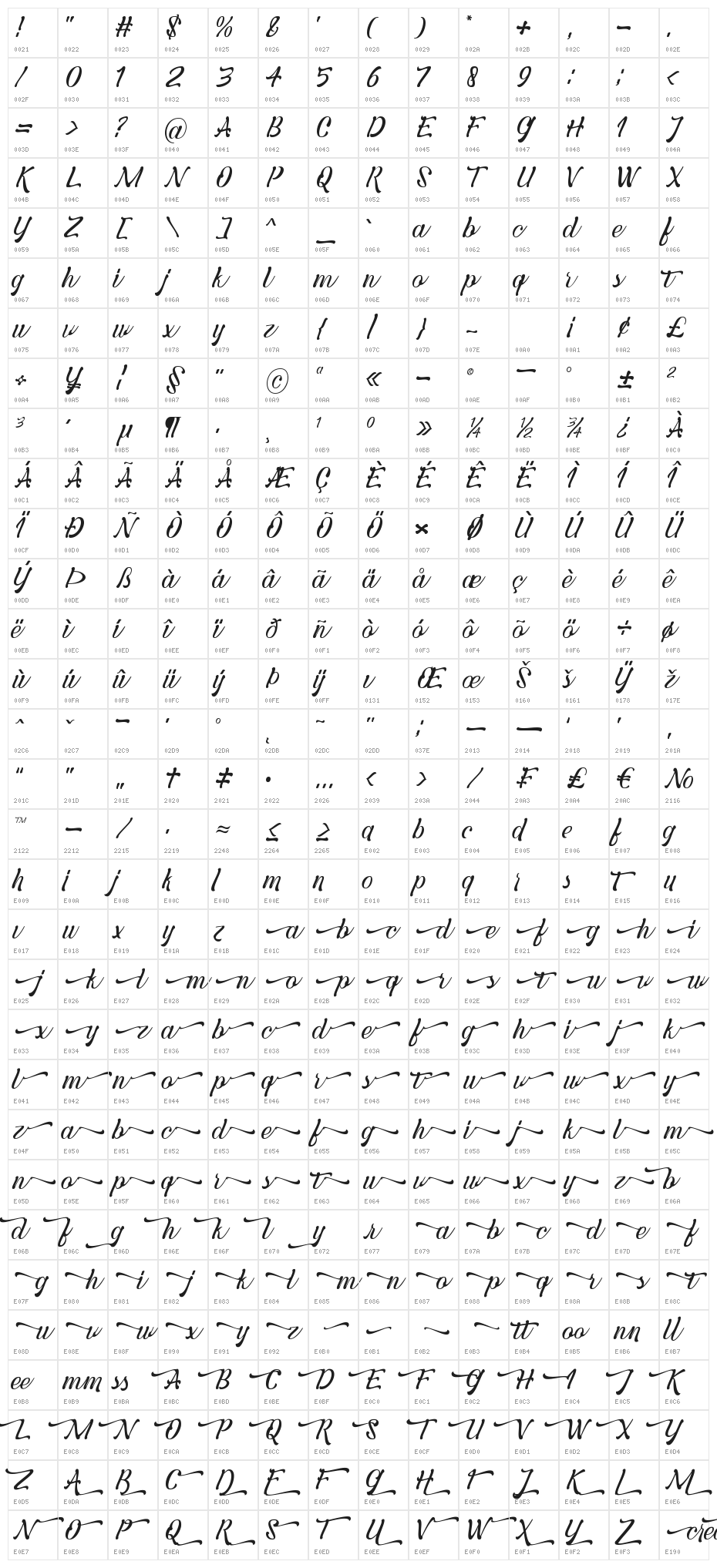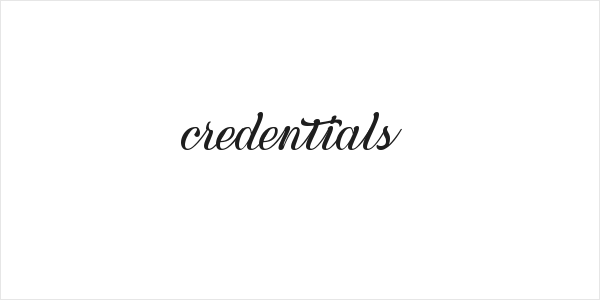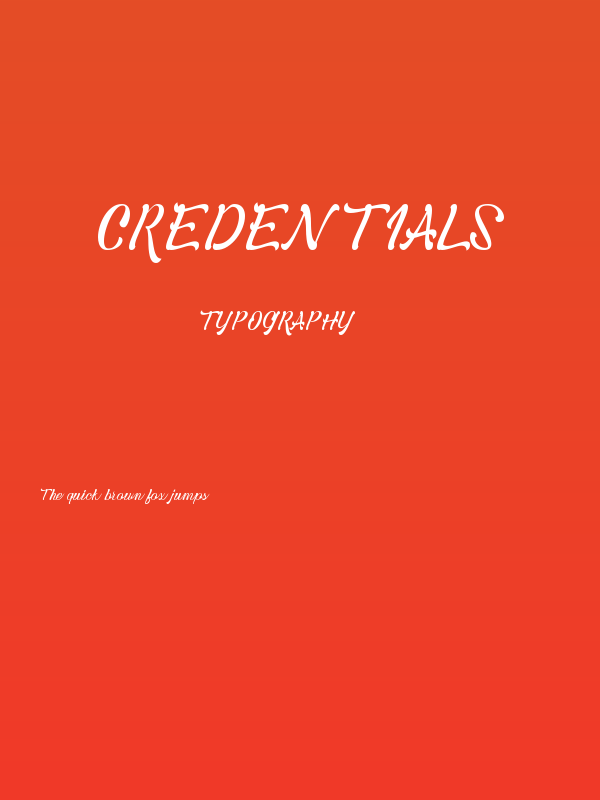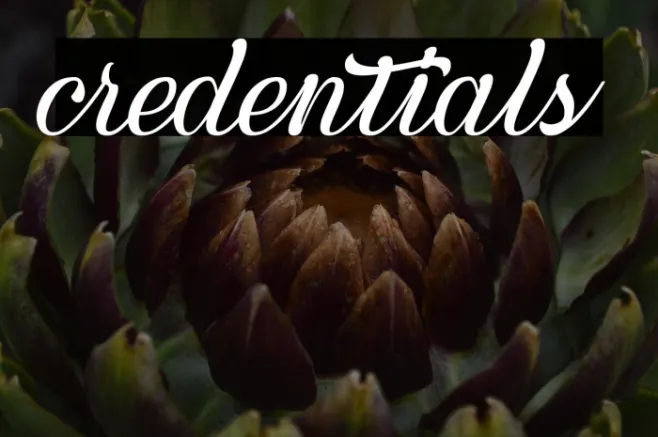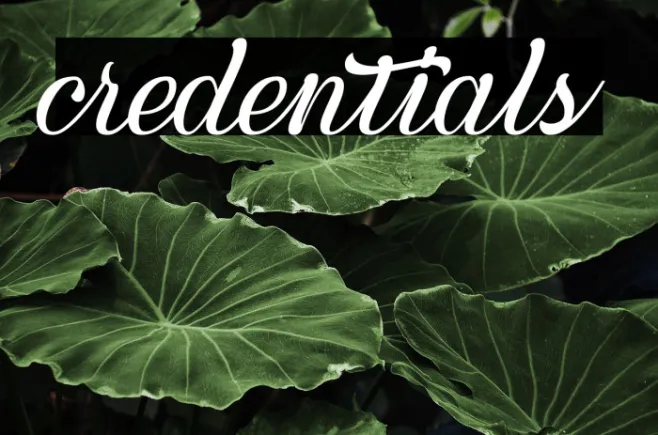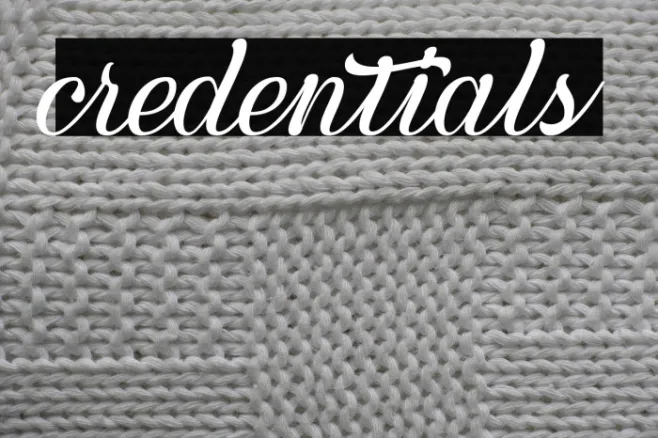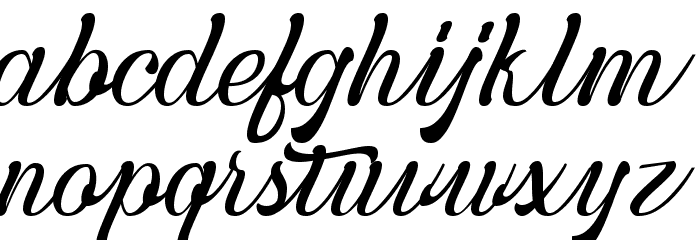
credentials Font
credentials Description
This font features a flowing, cursive style with elegant, sweeping strokes that give it a handwritten appearance. The letters are connected, creating a seamless and fluid look that is both sophisticated and approachable. The uppercase letters are slightly more ornate, with additional flourishes, while the lowercase letters maintain a consistent rhythm and balance. The numbers and special characters follow the same stylistic cues, ensuring uniformity across all glyphs. This font's design is ideal for adding a personal touch to any project, making it perfect for invitations, greeting cards, and branding materials.
| Proposed Projects | Ideal for wedding invitations, personal branding, greeting cards, and elegant signage. |